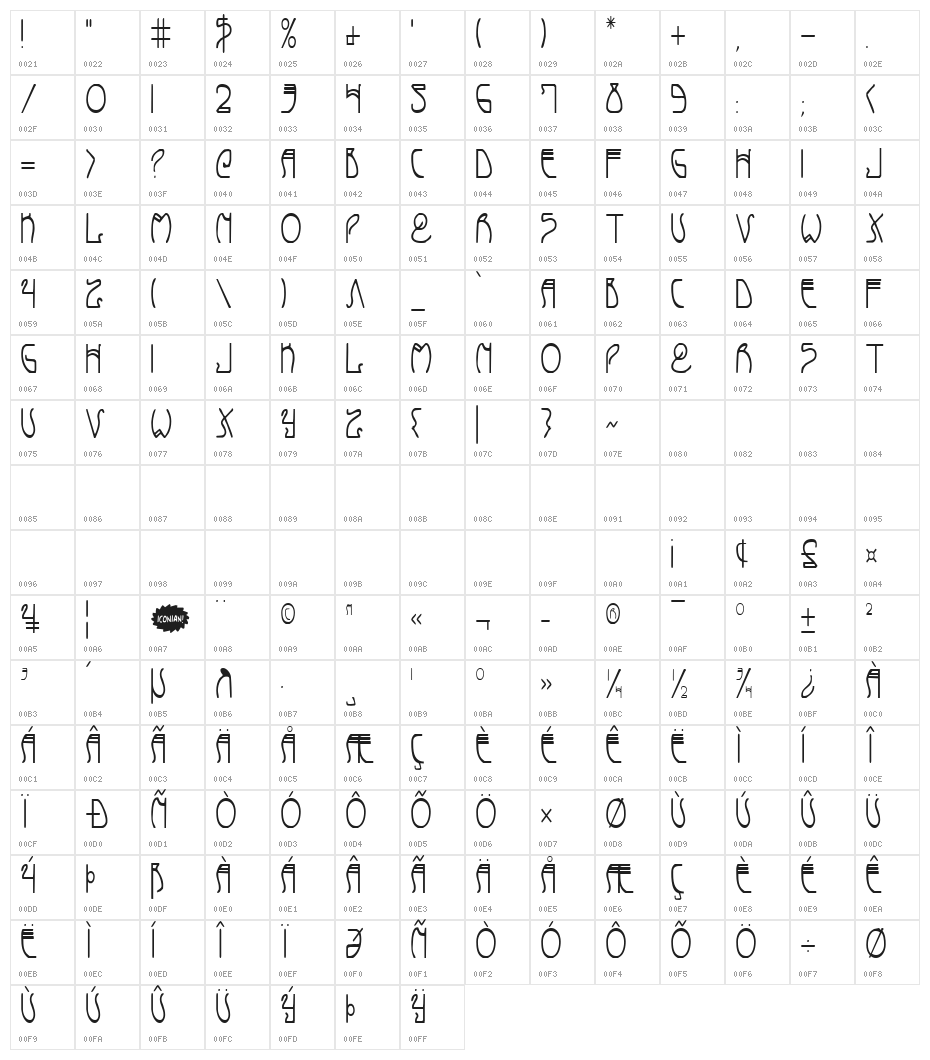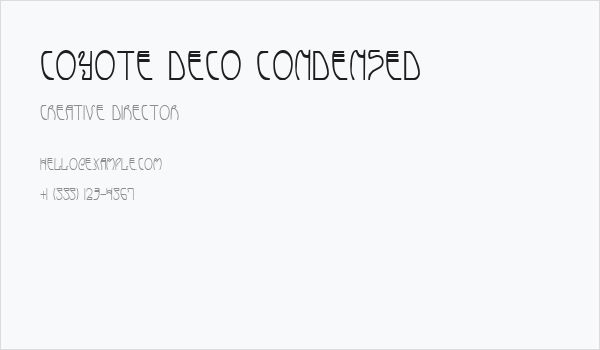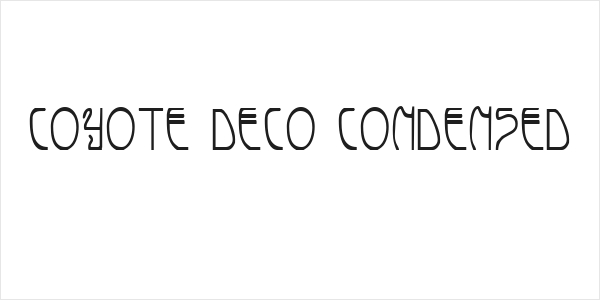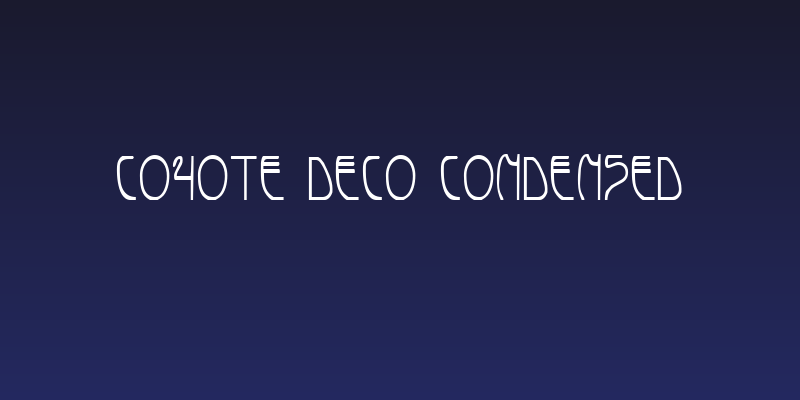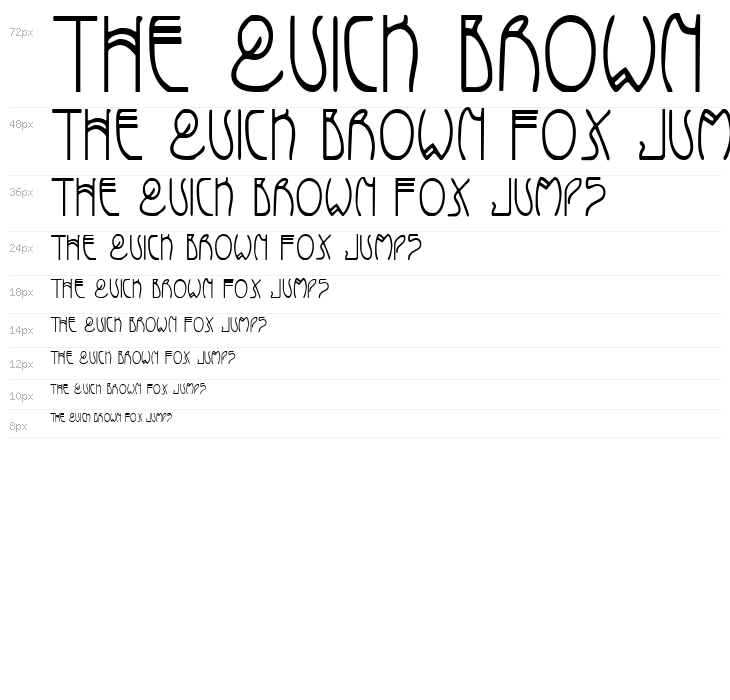
Coyote Deco Condensed Font
Coyote Deco Condensed Description
This font features a unique blend of geometric and art deco influences, characterized by its condensed letterforms and distinct angular shapes. The uppercase and lowercase letters maintain a consistent style, with sharp edges and a futuristic feel. The numerals and special characters are designed with the same attention to detail, offering a cohesive look across all glyphs. This font's design is both modern and retro, making it versatile for various creative applications. The strokes are uniform in thickness, providing a clean and structured appearance. Its condensed nature allows for efficient use of space, making it ideal for headlines and titles where impact is essential.
| Proposed Projects | Ideal for branding, posters, and editorial design where a modern yet retro aesthetic is desired. |